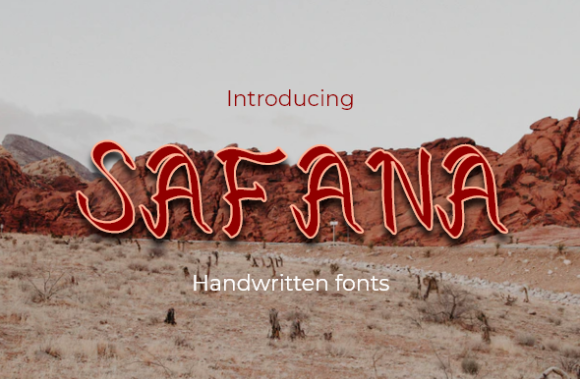
Introduction to Safana Font
Safana embodies fun, quirkiness and authenticity.
This enchanting handwritten font will turn any creative idea into a true standout .
Safana Font offers exceptional quality and versatility, making it a valuable addition to your design toolkit. Whether you’re creating for personal projects or commercial use, Safana Font delivers professional results.